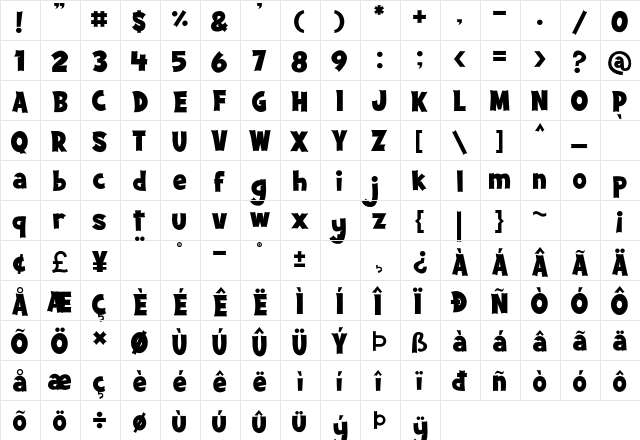
Scary Dream Regular
Design Context for Scary Dream Typeface
Scary Dream leans into the macabre with letterforms designed to disturb and intrigue in equal measure.
Perfect for anything that needs to unsettle — game titles, horror branding, and macabre invitations.
Font Pairing: Pair with a clean neutral sans-serif for body copy to let Scary Dream's character lead without overwhelming the composition.
Pro Tip: Use Scary Dream at larger display sizes for maximum impact. Consider generous tracking to let the disturbing character of each letterform breathe.